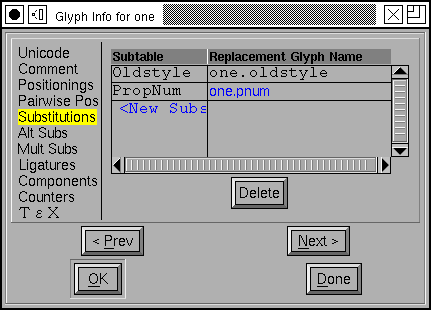
In many scripts glyphs have several variant glyphs. In latin the most obvious example is that every letter has both an upper case and a lower case variant. A more esoteric example would be that in renaissance times the long-s variant (of s) was used initially and medially in a word, while the short-s was only used at the end of a word.
Most Arabic glyphs have four variants (initial, medial, final and isolated).
The digits often have several variants: tabular digits (where all digits
have the same advance width so that tables of numbers don't look ragged),
proportional digits (where each digit has a width appropriate to its shape)
and old-style or lower case digits
(
) where some
digits have descenders and others have ascenders.
Some of these variants are built into the encodings (the upper and lower case distinction is), but in other cases you should provide extra information in the font so that the word processor can be aware of the variants (Arabic is midway between the two, the various forms are in the encoding, but you need to provide extra information as well).
Let
us consider the case of the digits mentioned above. Assume that the glyph
called "one" contains the tabular variant of one, the glyph "one.prop" contains
the proportional variant and "one.oldstyle" contains the lower-case variant,
and so on for all the other digits. Before you do anything else you must
create two lookups and associated
subtables (I shan't go into that again. Here the lookup type is "Single
Substitution", and the features are "pnum" for Proportional Numbers and "onum"
for Oldstyle Figures. Also the digits aren't in any single script, but are
in many, so make this feature apply to multiple scripts (including "DFLT").
When FontForge brings up the dialog to fill in the oldstyle lookup subtable notice that there is a button [Default Using Suffix:] followed by a text field containing a suffix. Set the text field to "oldstyle" and press the button. It will search through all glyphs in all the scripts of the feature and find any "oldstyle" variants of them and populate the table with them.
Sometimes
it makes more sense to think of all the substitutions available for a specific
glyph (rather than all substitutions in a specific lookup). So instead if
filling up the subtable dialog for "Proportional Numbers" let us instead
select "one" from the fontview,
Element->Glyph Info,
select the Substitutions tab and press the <New>
button.
(Note: Type0, Type1 and Type3 PostScript fonts have no notation to handle this. You need to be creating an OpenType or TrueType font for these variants to be output).
FontForge supports OpenType's Contextual Substitution and Chaining Contextual Substitution sub-tables, and to a lesser extent, Apple's contextual glyph substitution sub-table. This means that you can insert conditional variants into your font. The next page will go into this in greater detail.
Some scripts (Arabic, Hebrew) need vowel marks placed around the main text glyphs. Other scripts (some variants of Latin and Greek) have so many possible accent combinations that having preassembled glyphs for all combinations is unwieldy.
In OpenType (which includes MicroSoft's TrueType fonts) it is possible to indicate on all base glyphs where marks should attach, and on all marks where the base glyphs should attach. Thus one could put an anchor centered above a lowercase-a indicating that all accents (acute, grave, umlaut, circumflex, tilde, macron, ring, caron, ...) should attach there, and underneath all the accents one could put another anchor so that when the two glyphs are adjacent in the text the word-processor will know where to place the accent so that it rides above the "a".
Not all accents ride centered above the letter (the dot and ogonek ride below the letter), so you may need more than one anchor for different styles of attachment.
Finally some letters can have multiple attachments, unicode U+1EA4, for example, is an A with a circumflex and an acute. Normally the circumflex and the acute will attach at the same point, which would be ugly and confusing. Instead we create a different kind of anchor, a mark to mark anchor, on the circumflex and allow the acute accent to attach to that.
Before one can create an anchor in a glyph one must (of course) create a lookup and subtable. This is another Glyph Positioning lookup (so you enter it in the GPOS pane). Once you have created the subtable you will be presented with another dialog asking for anchor classes, you must create an anchor class for each type of attachment (thus in the case of A above with two types of attachments (one above and one below) you would create two anchor classes.
Then for each glyph in which an attachment will be made, you should first
click at the point where the anchor is to be created and then bring up the
Point->Add Anchor
dialog.
You can examine (and correct) how a glyph fits to any others that combine
with it by using the
View->Anchor
Control... command.
A warning about mark attachments: Not all software supports them. And even more confusing software may support them for some scripts and not for others.